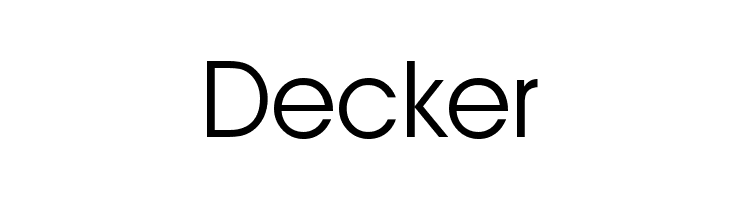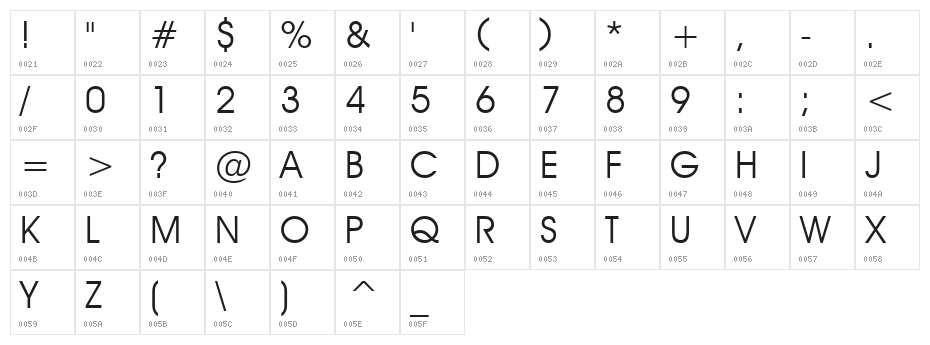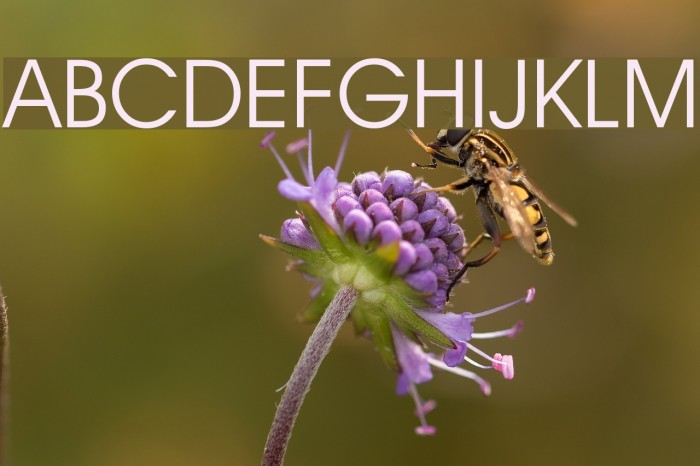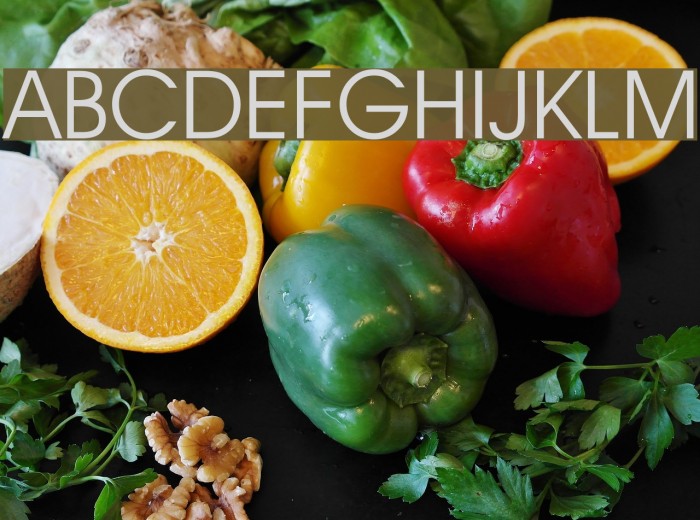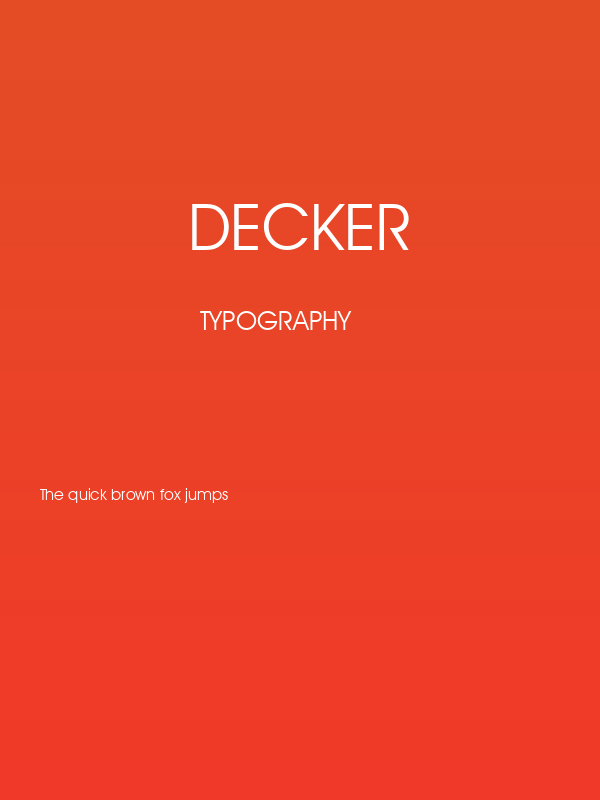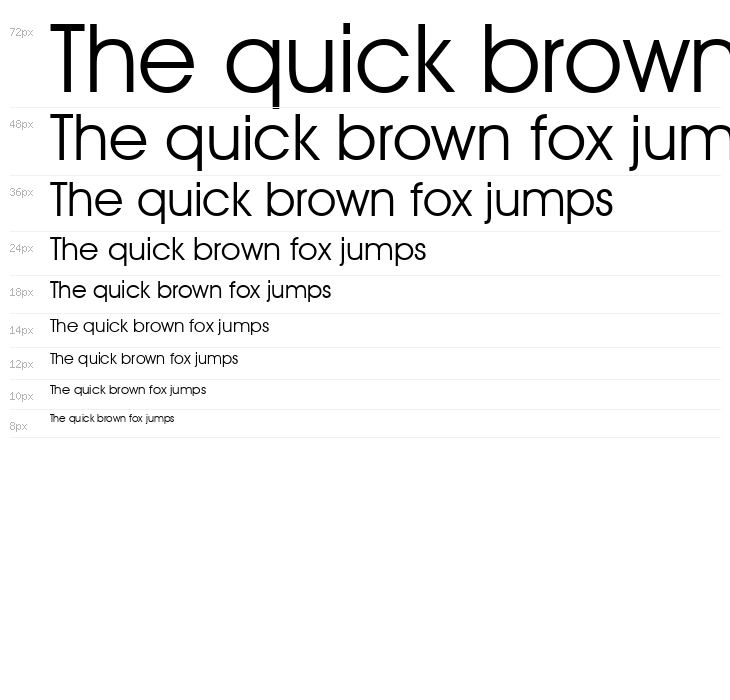
Decker Font
Decker Description
This font features a clean and modern sans-serif design, characterized by its geometric shapes and even stroke widths. The uppercase letters are bold and assertive, while the lowercase letters maintain a consistent and harmonious appearance. The numerals are clear and legible, making them suitable for a variety of applications. Special characters are well-defined, adding versatility to the font's use. The overall look is sleek and professional, ideal for contemporary design projects.
| Proposed Projects | Ideal for branding, advertising, web design, and editorial layouts that require a modern and professional appearance. |